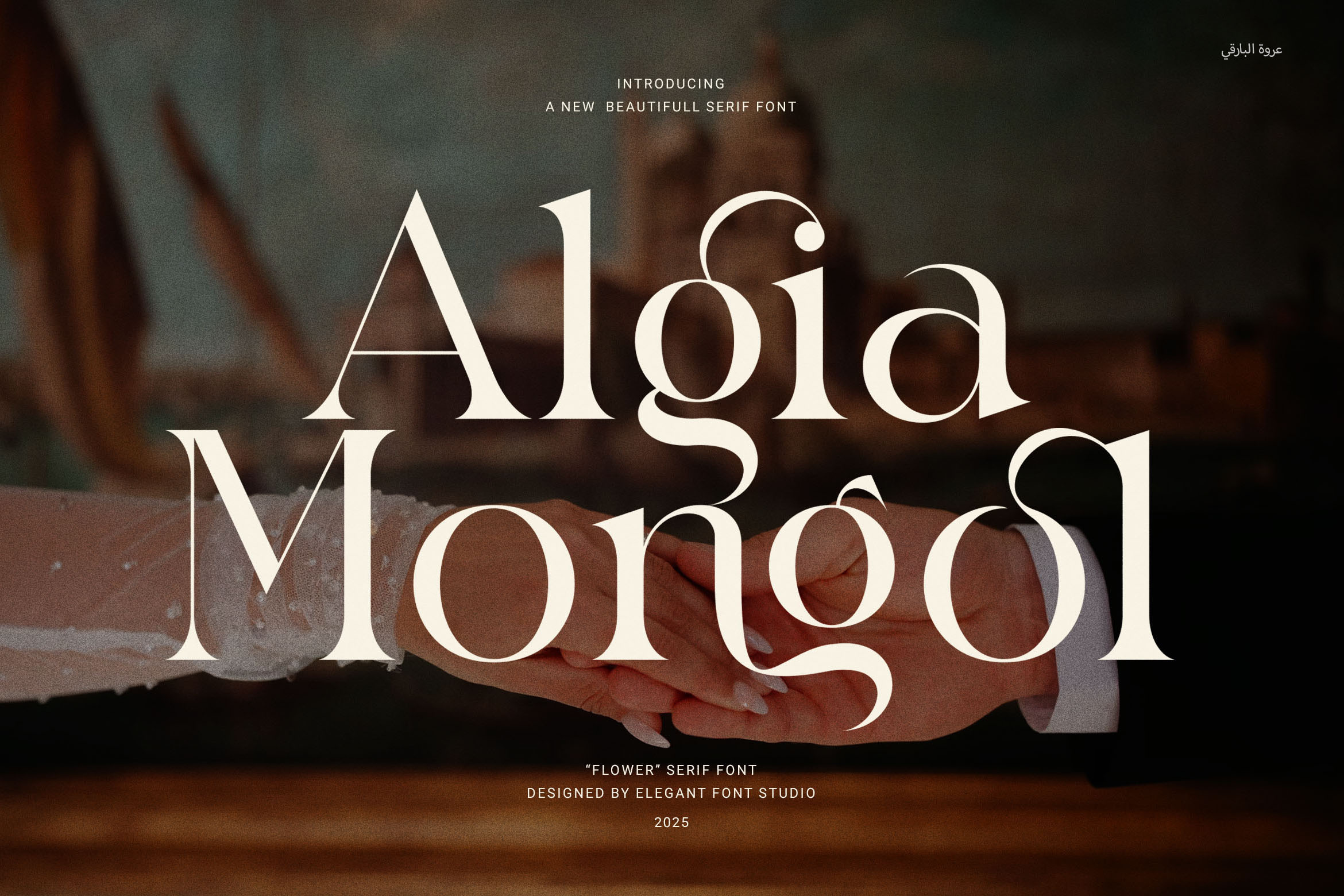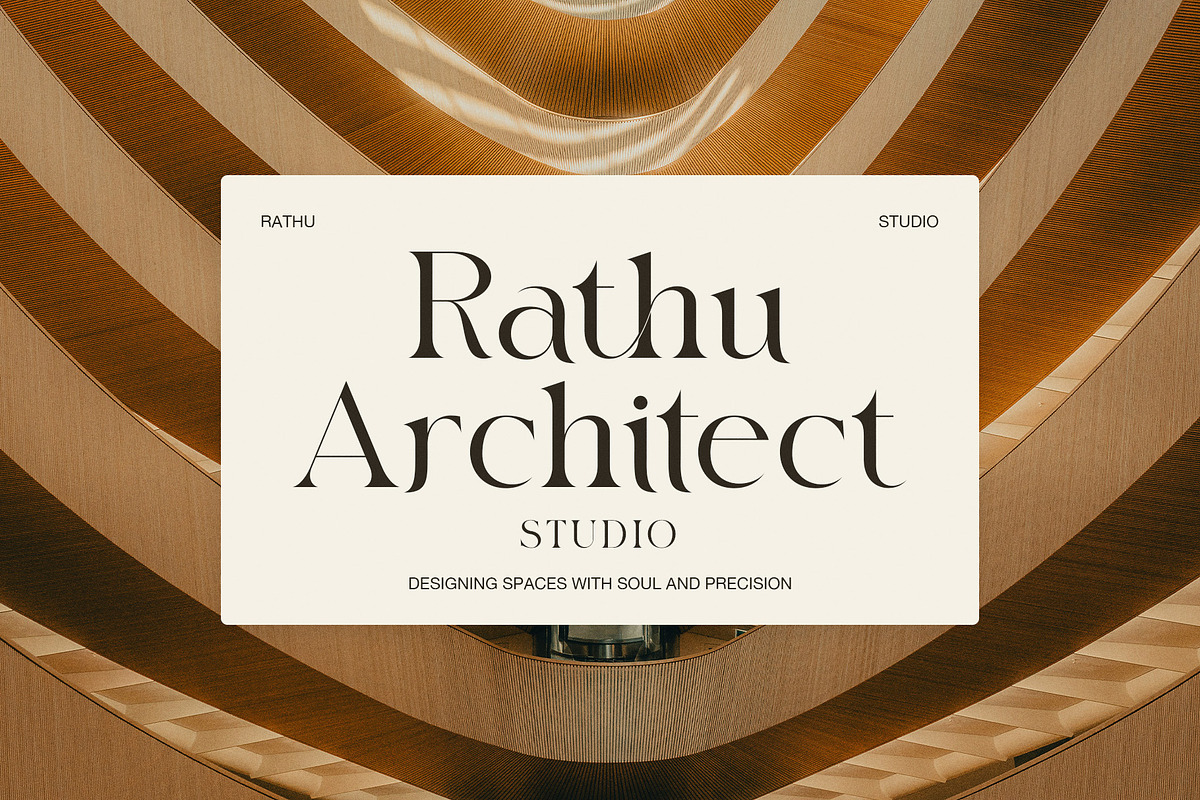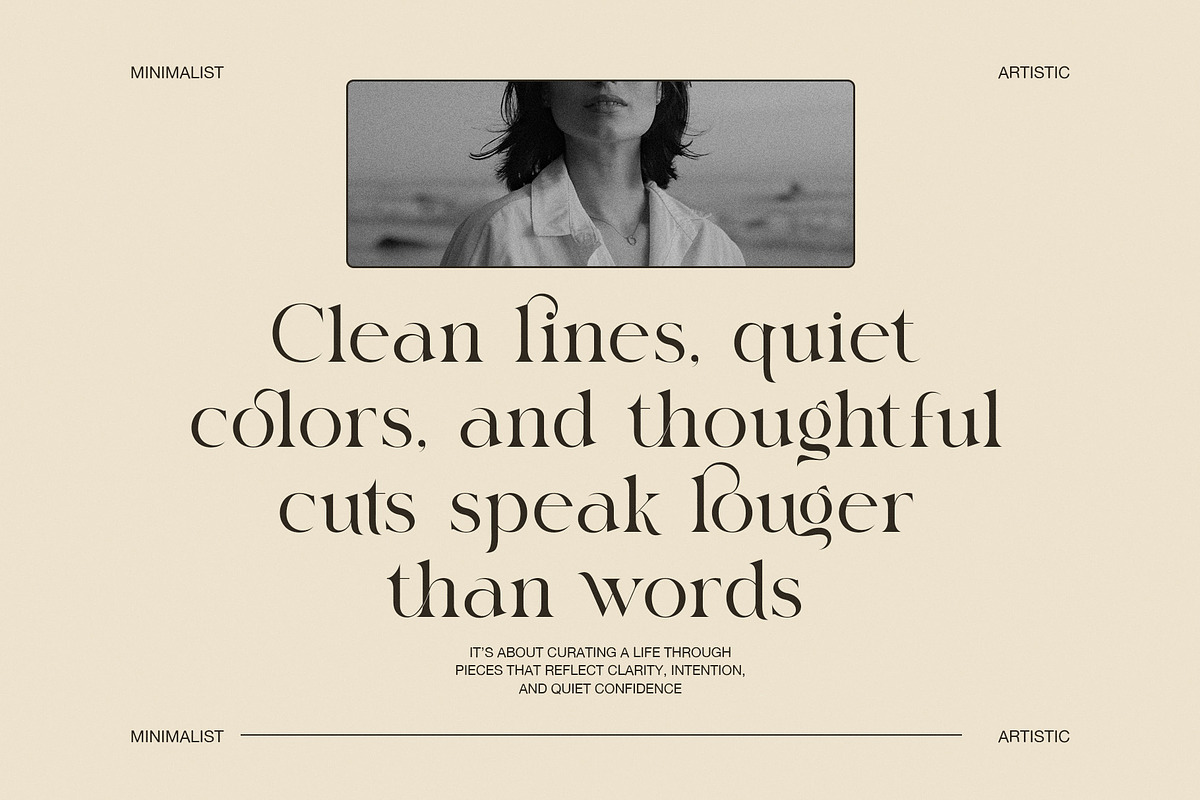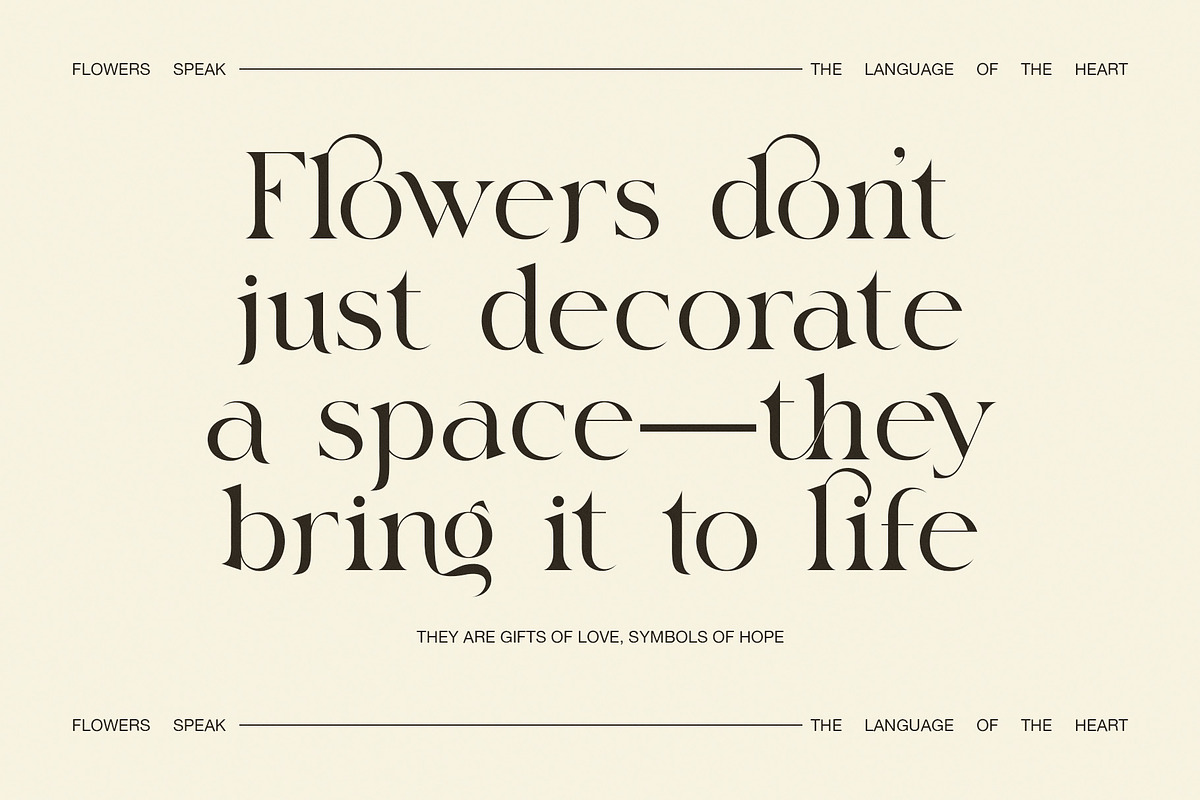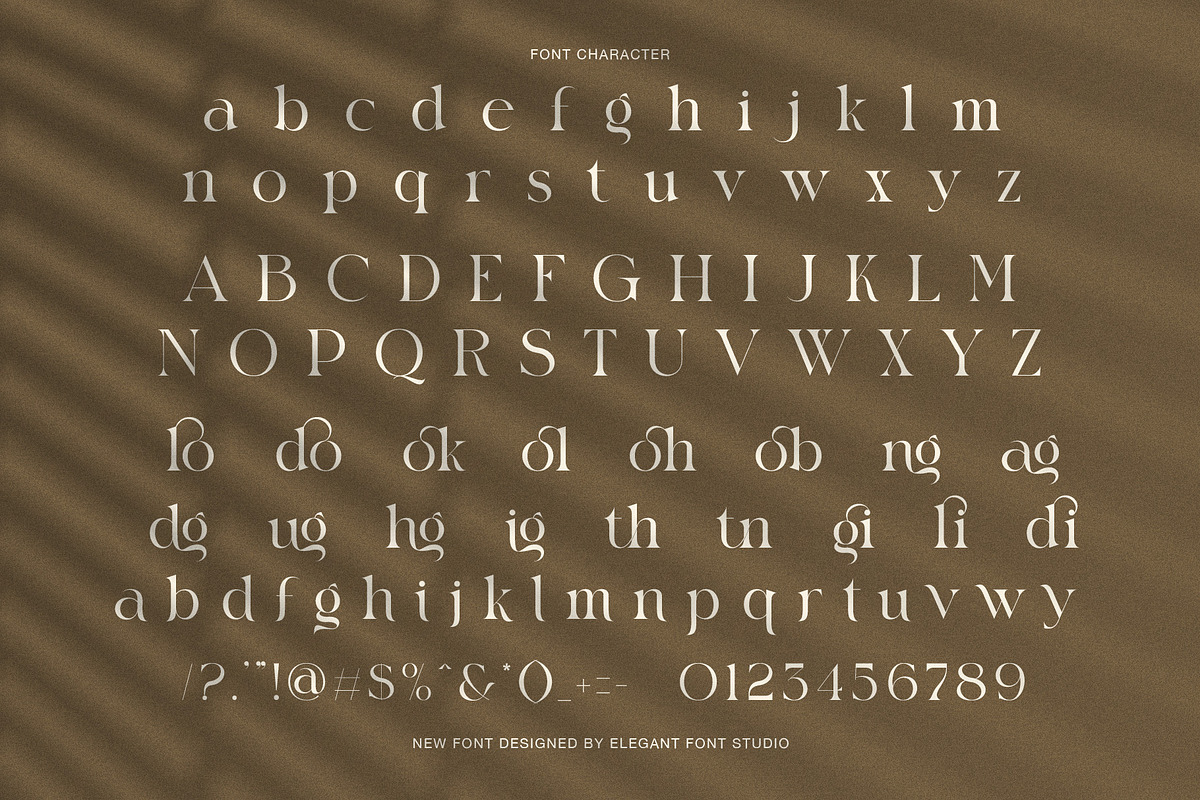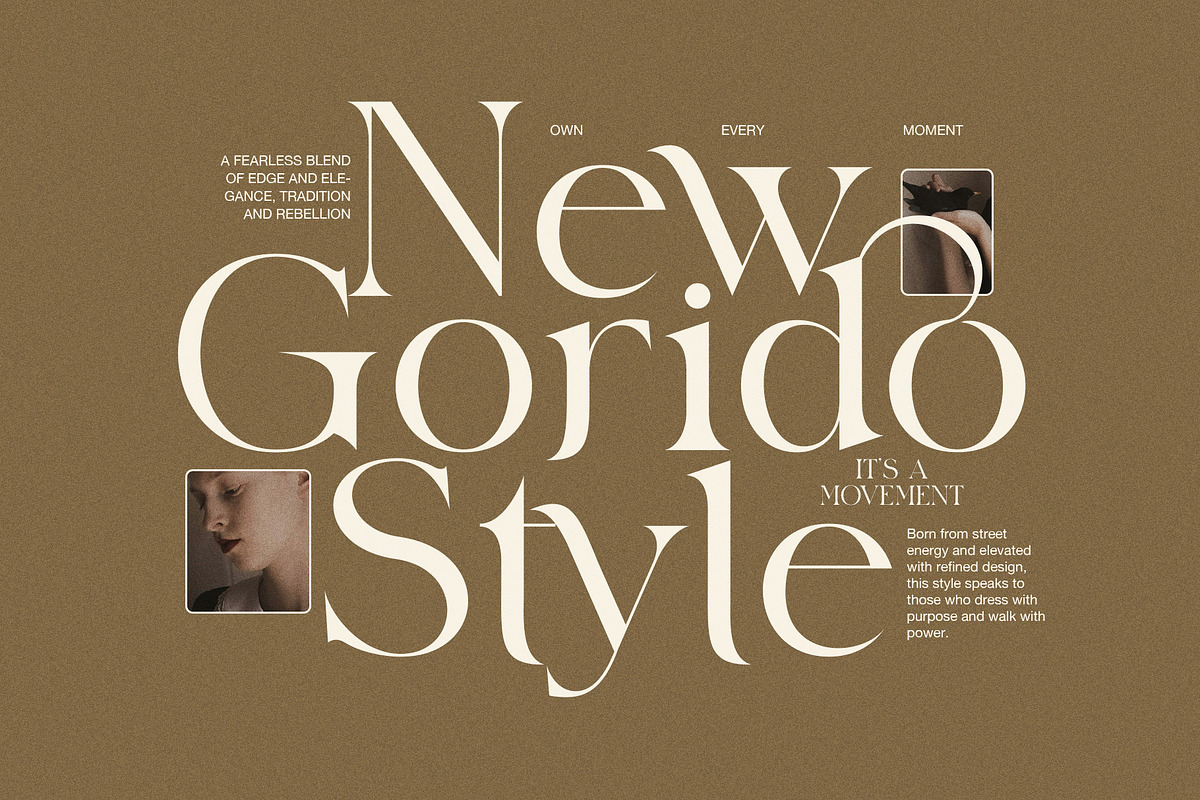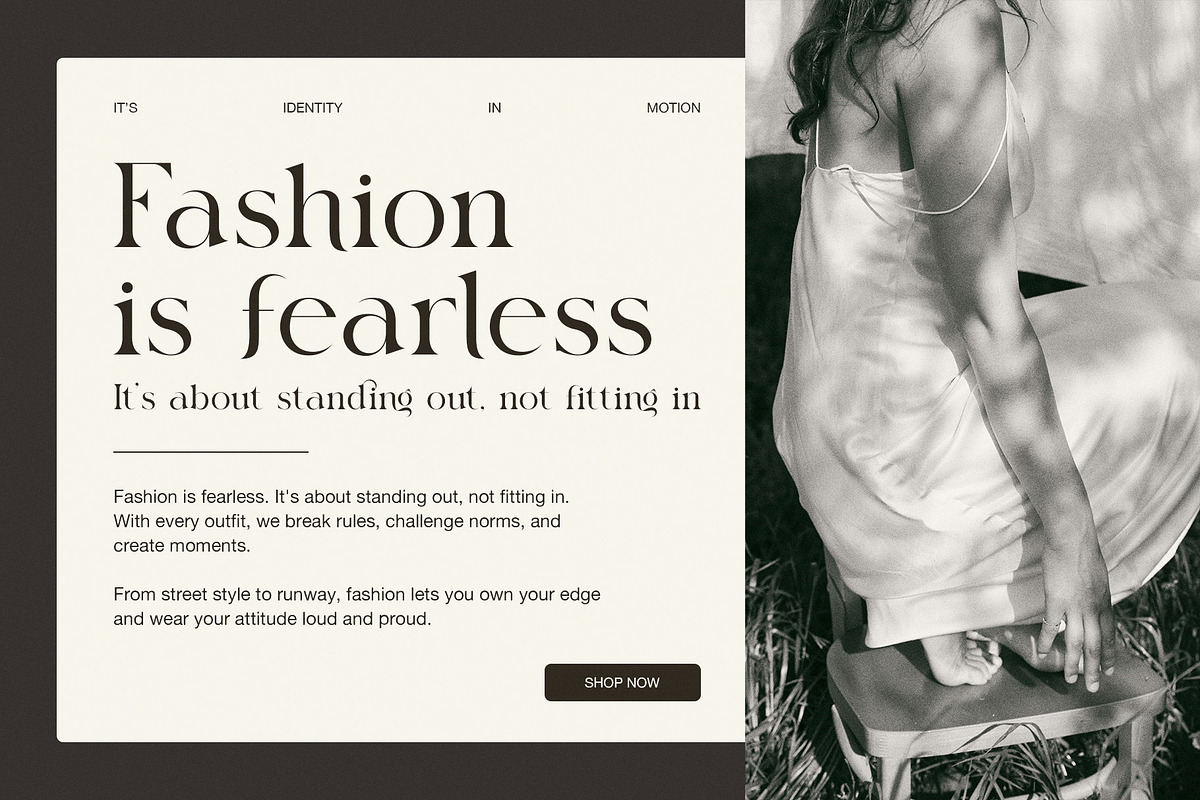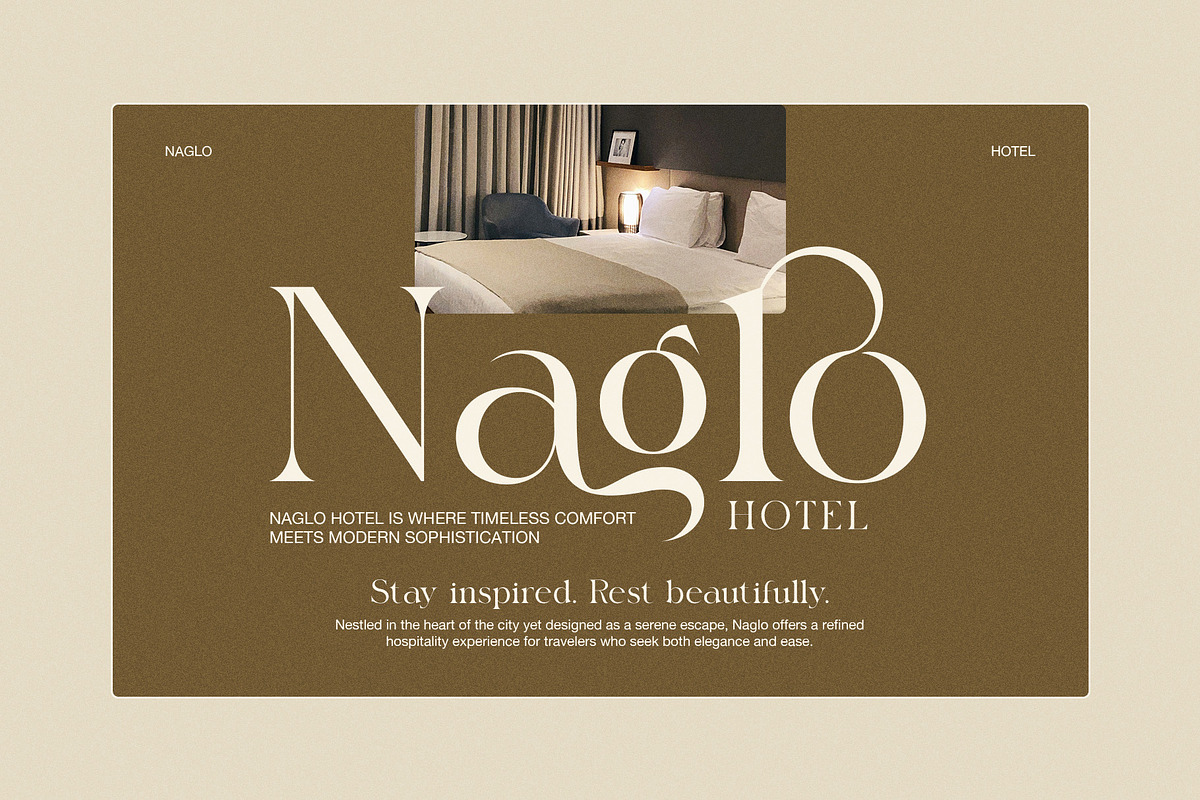
Algia Mongol Elegant Serif Font
Algia Mongol Elegant Serif Font – Sophisticated, Modern, and Ready for Timeless Branding
Algia Mongol is a modern and elegant serif font crafted for creators, designers, and businesses that value style, balance, and clarity. This beautifully proportioned typeface blends classic serif details with a clean, contemporary structure—making it the perfect font for upscale branding and visual identity.
Ideal for logos, websites, editorial layouts, packaging, and advertising, Algia Mongol brings a refined, professional look to any project. Its well-designed ligatures add a natural flow and artistic touch to your typography without compromising readability.
Whether you're working on a luxury boutique, a fashion brand, a modern food label, or a corporate identity, Algia Mongol fits seamlessly. It’s versatile enough for small business needs and powerful enough for corporate or enterprise branding.
Every letterform is designed for balance and visual harmony, allowing it to shine in both digital and print use. It’s a go-to font for high-end presentations, marketing assets, product packaging, social media, and more.
✨ Why Choose Algia Mongol Elegant Serif Font?
Elegant Serif Structure – A perfect blend of modern minimalism and timeless style
Functional Ligatures – Enhance visual appeal with seamless text transitions
Proportional Letterforms – Ensures readability and structure across all designs
Ideal for Branding – Use in logos, websites, editorials, and promotional materials
Multi-Purpose Use – Great for fashion, food, packaging, advertisements, and more